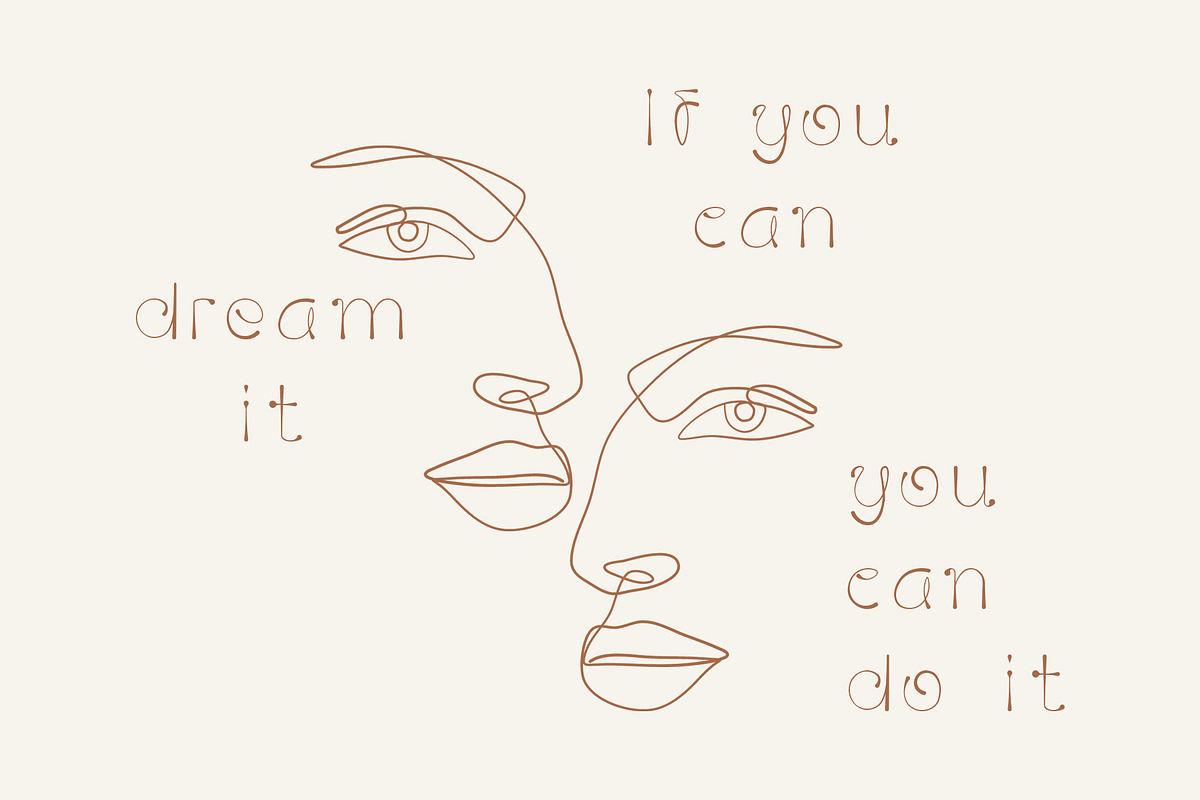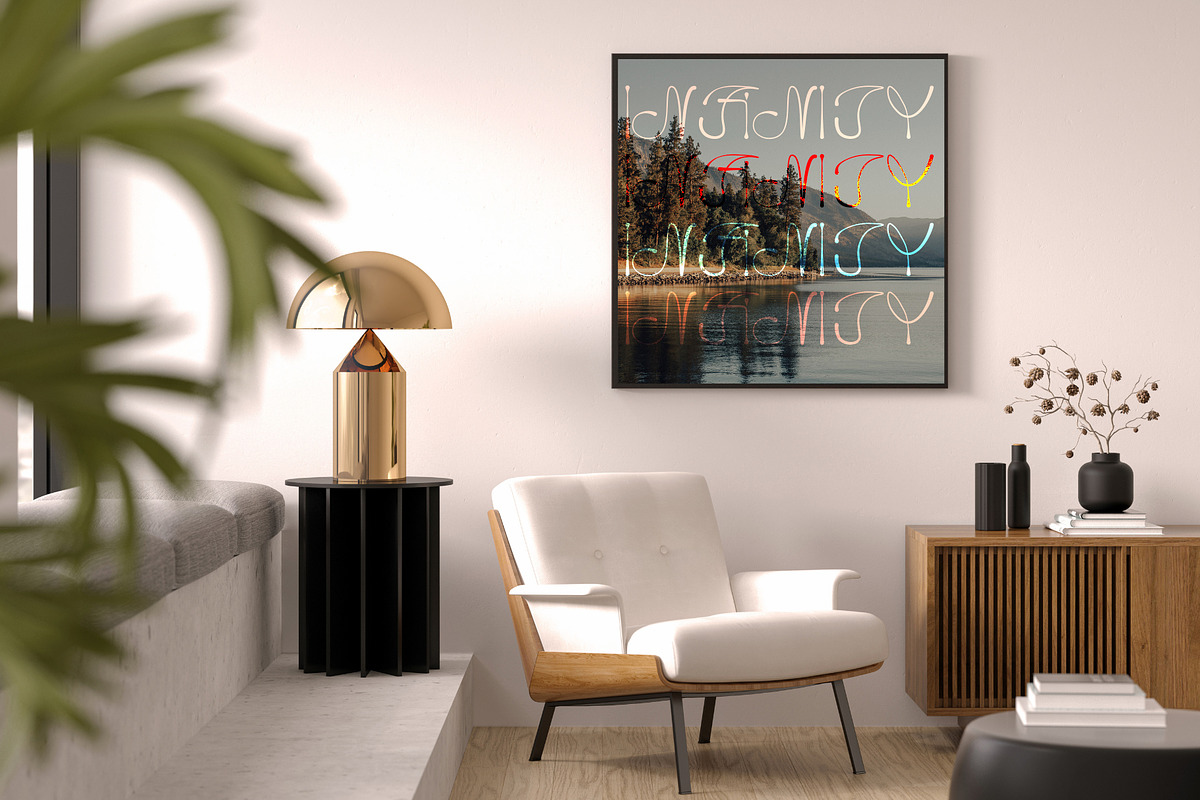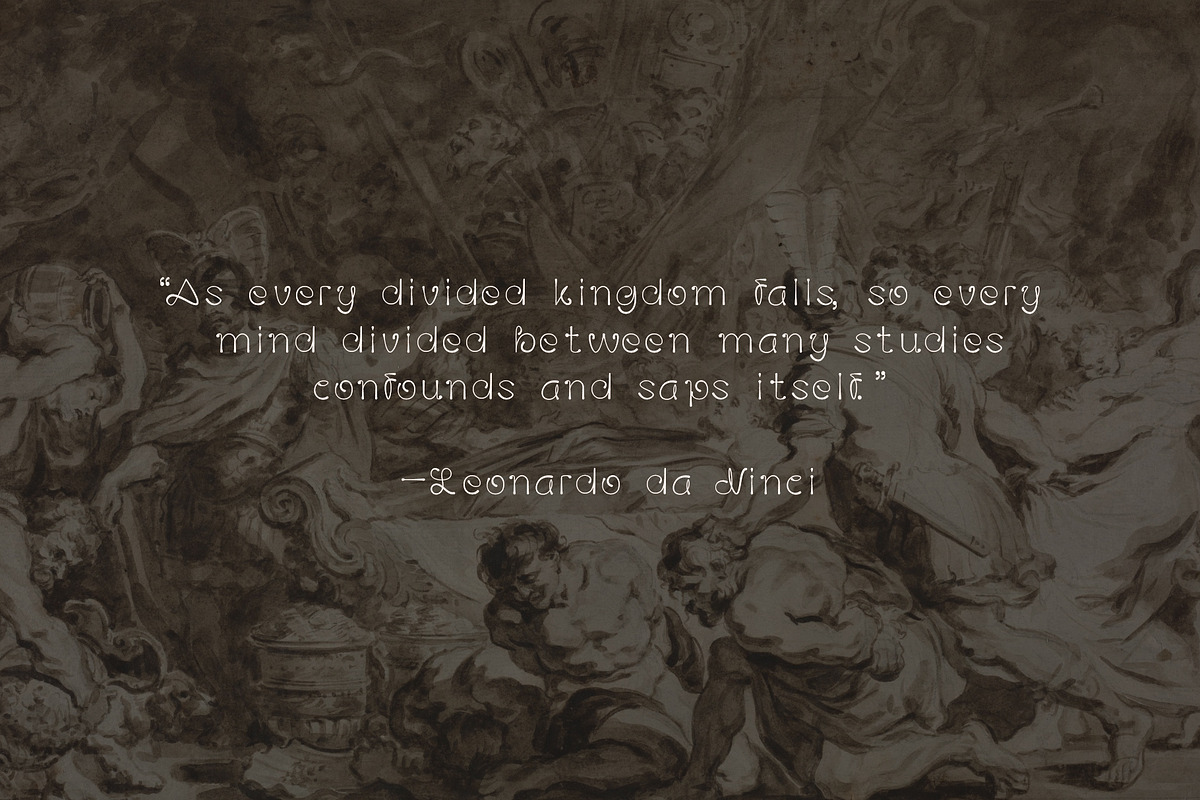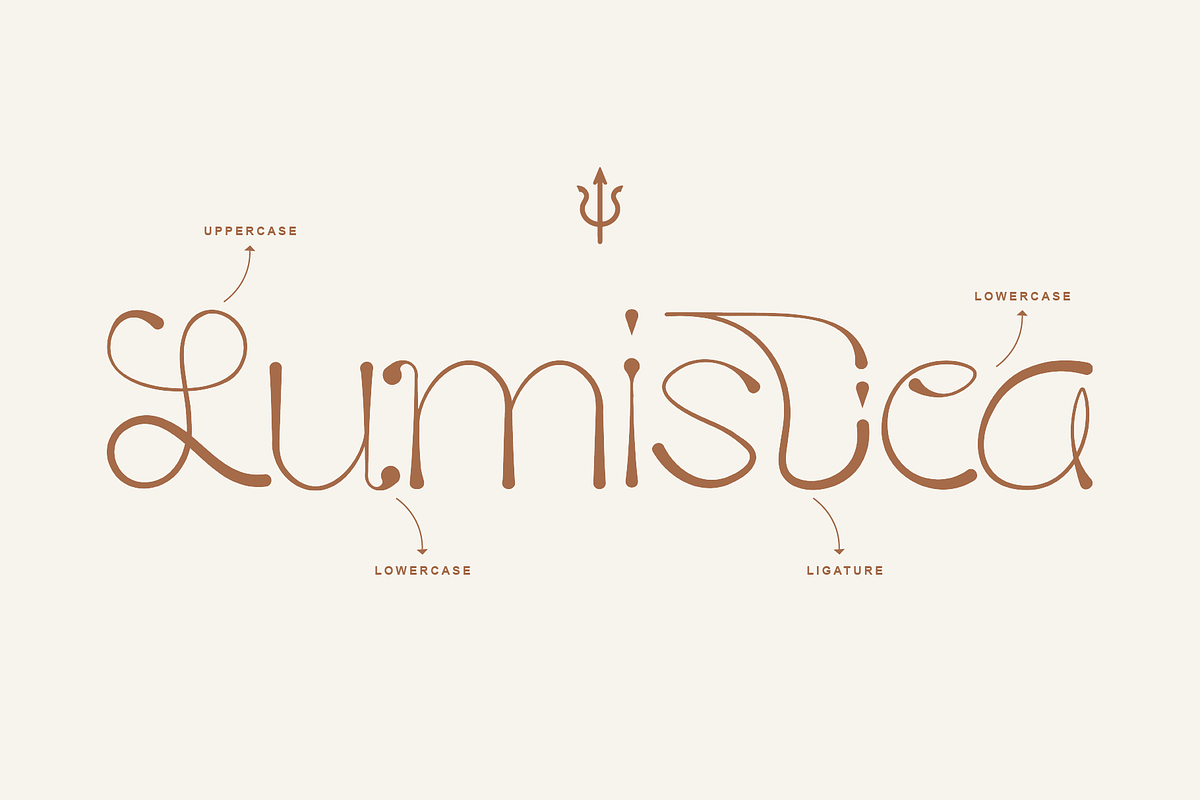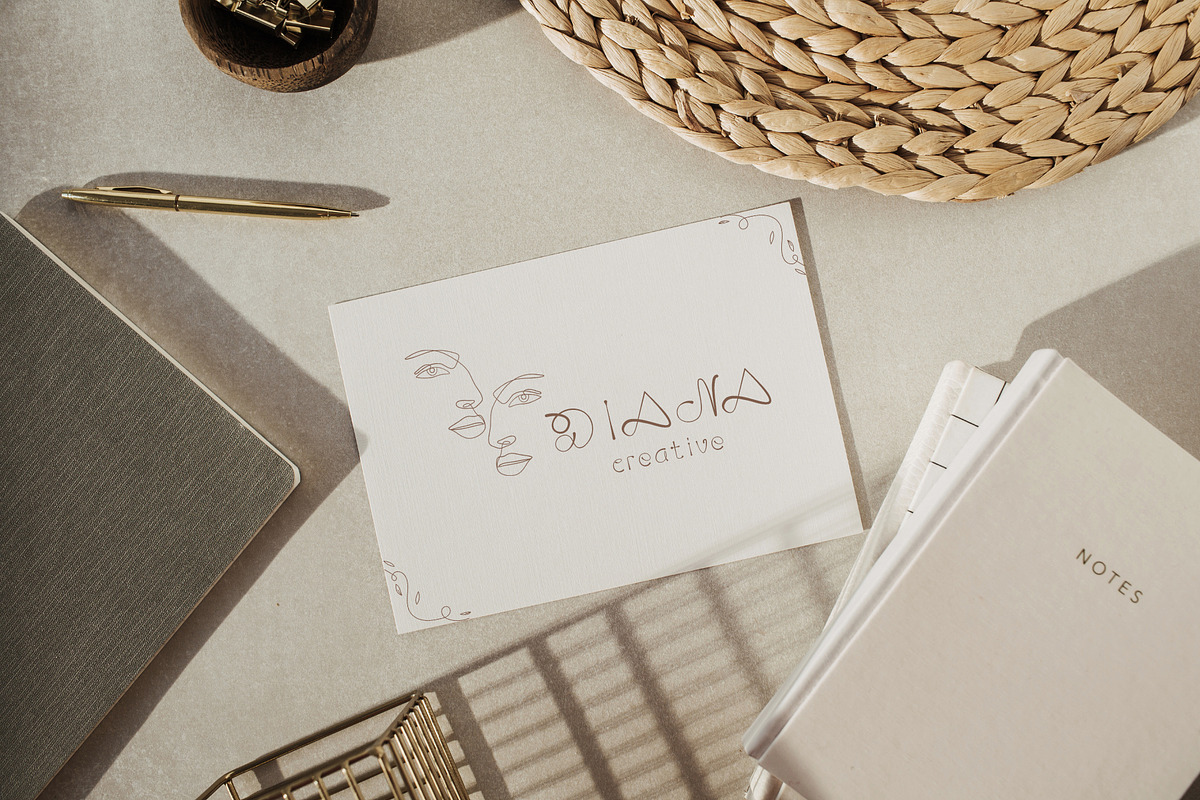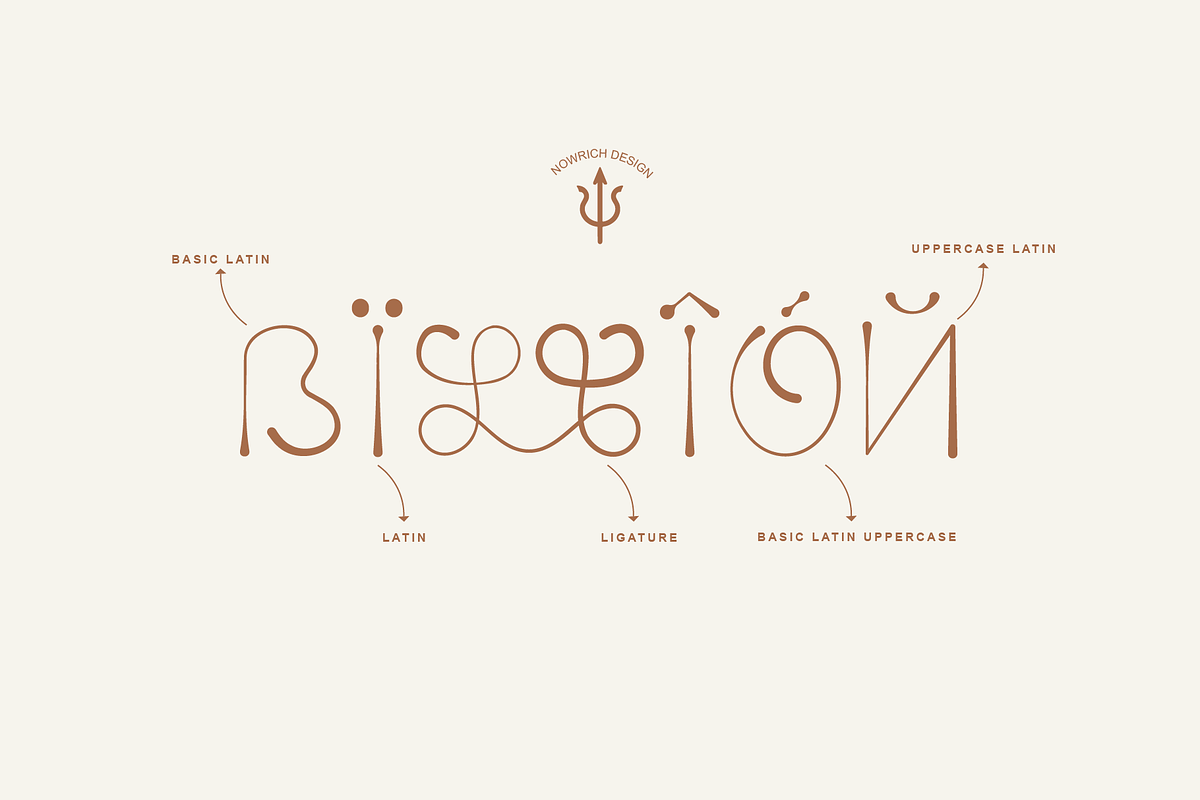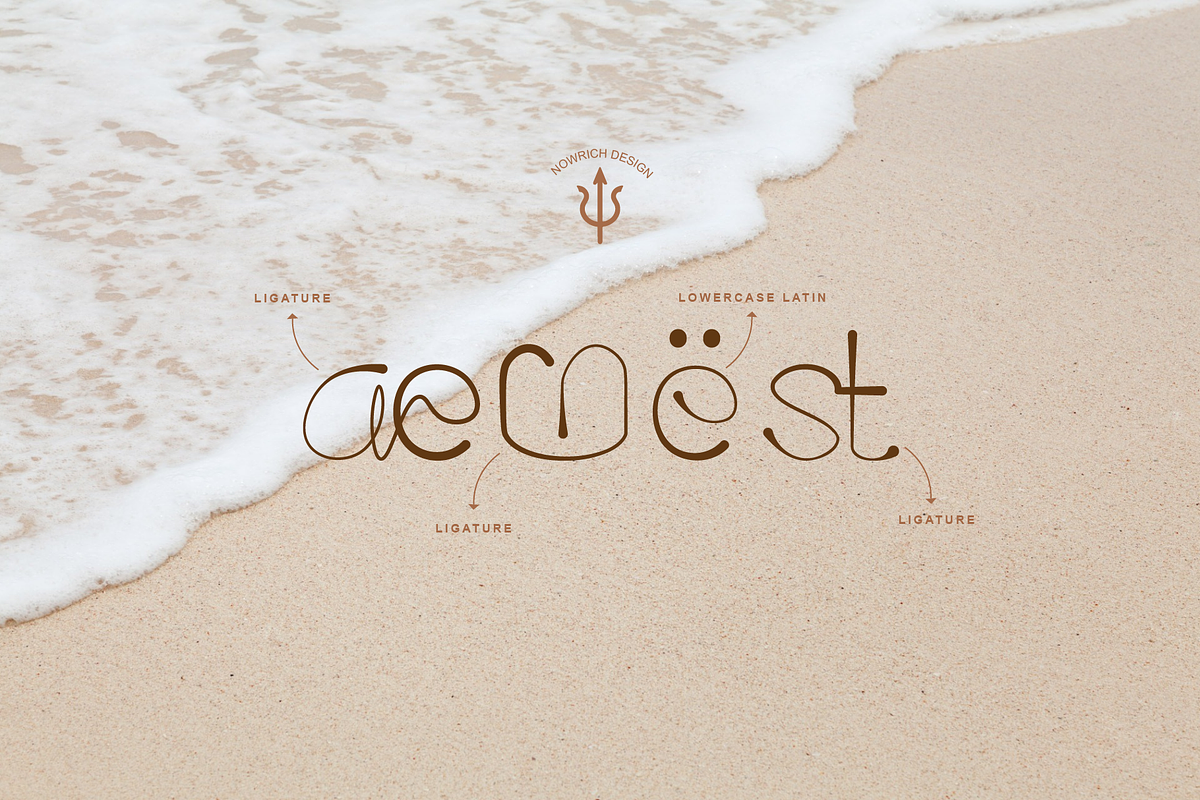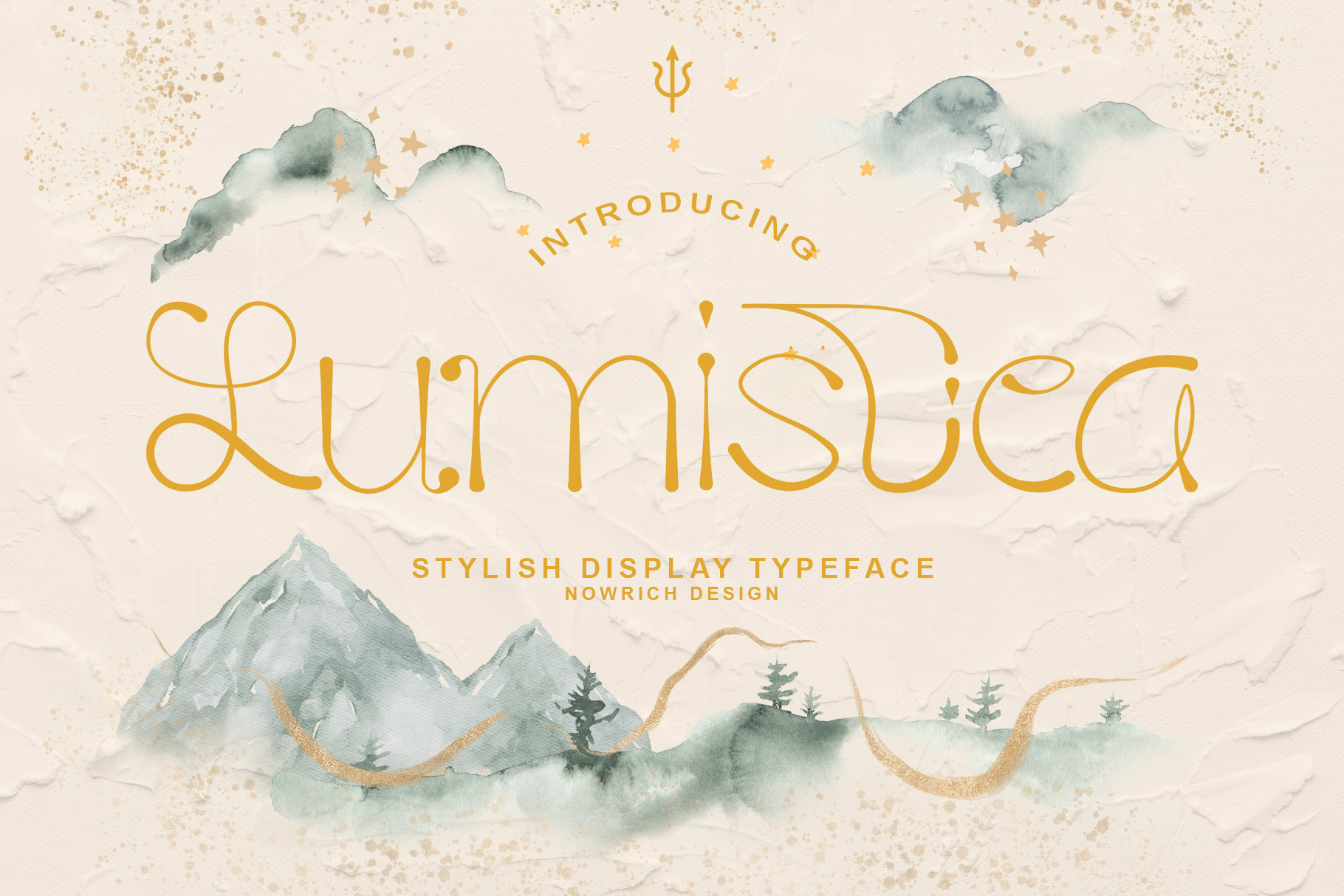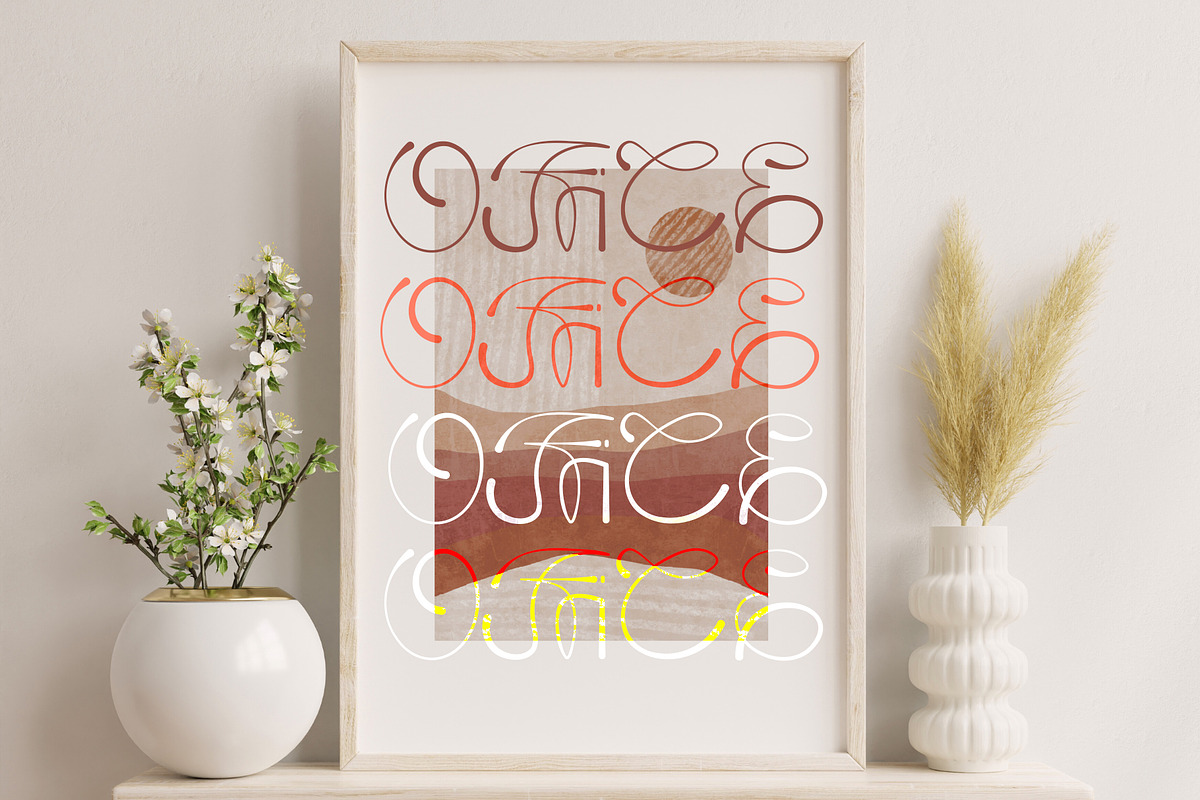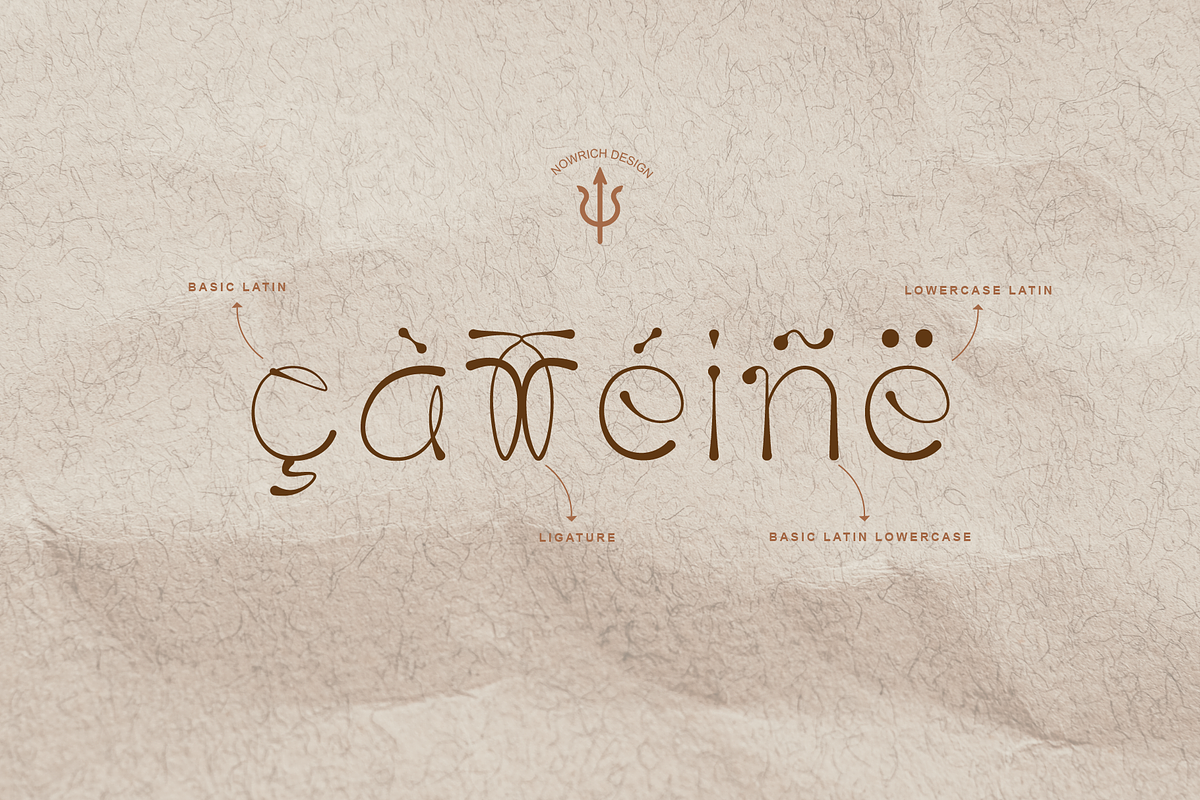
Lumistica Script Display Typeface
Introducing Lumistica, an exquisite display script font
Meticulously crafted to elevate your designs to new heights. With a fusion of timeless references and contemporary design elements, Lumistica adds a touch of sophistication to any project. Its captivating uppercase and lowercase characters make it ideal for invitation cards, posters, branding, logos, illustrations, and more. Whether you're aiming for a traditional charm or a modern edge, Lumistica strikes the perfect balance, ensuring your creations stand out effortlessly. Experience the perfect blend of tradition and innovation with Lumistica—your ultimate tool for captivating graphic projects.